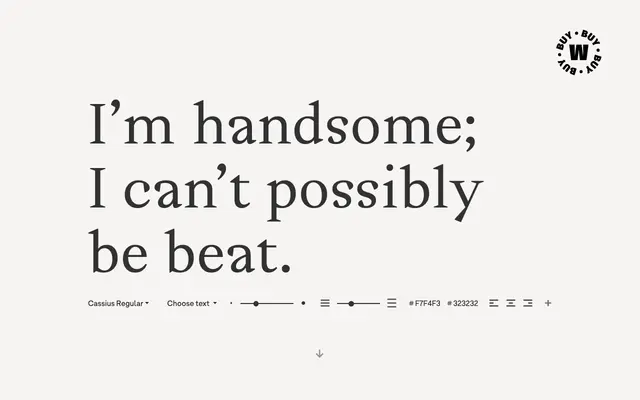
Cassius
W Type Foundry · David Súid
A postmodern garalde with inverted anatomy and projected terminals, offered in five weights with matching italics and a variable font axis.
Designed by David Súid, Cassius takes the structural logic of a Garaldes serif and reworks it through inverted anatomy and projected terminals to produce something with a distinctive rhythmic character. The family runs from Regular to Black across ten upright and italic styles, with a variable font available for each axis. OpenType features include small caps, old-style figures, ligatures, fractions and case-sensitive punctuation, making it well suited to book and magazine composition.
The foundry places Cassius within the Garaldes family, a branch of old-style serifs rooted in Renaissance letterforms. Its inverted anatomy and projected terminals give it a postmodern inflection while retaining the broad structural logic of a garalde.